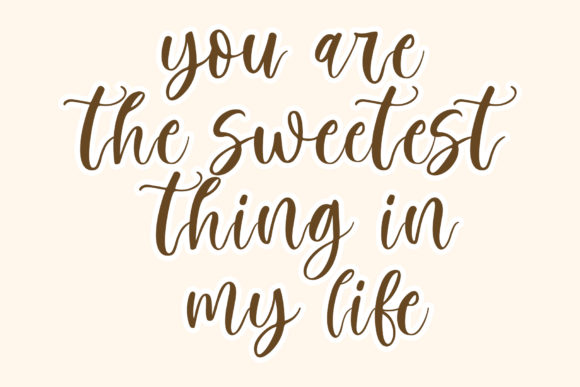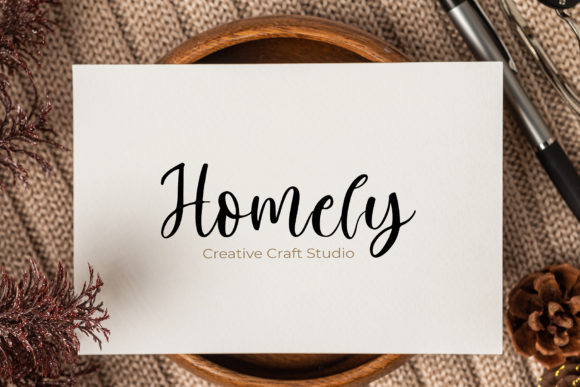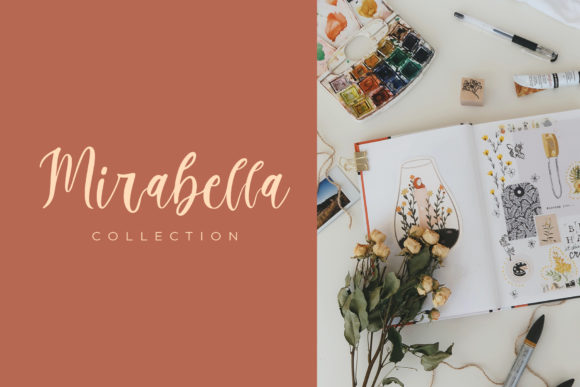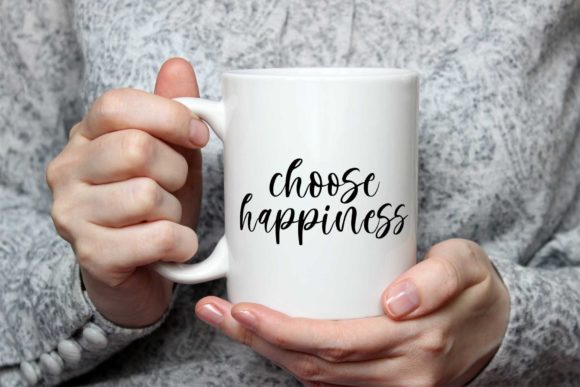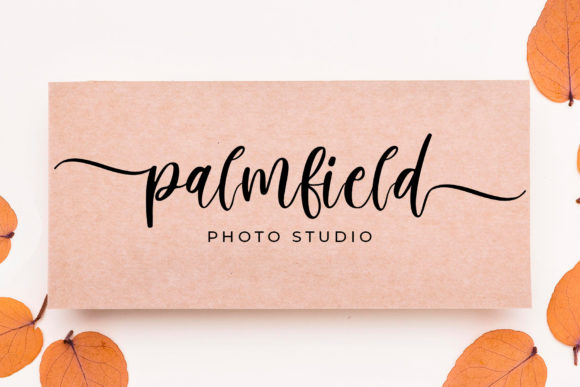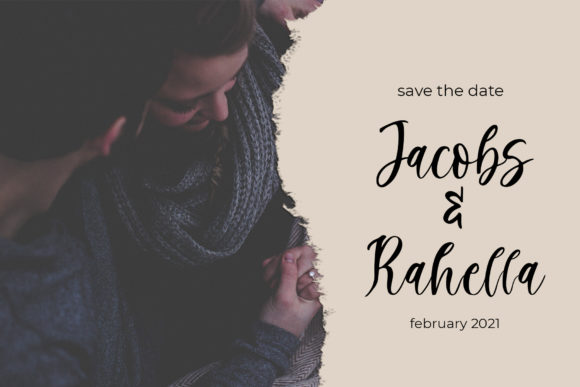
Creating Magic with Every Stroke: The Golden Moment Font
Do you remember that moment when everything came together – the colors, the typography, the overall aesthetic – and you knew you had created something truly special? For designers, that ‘golden moment’ is what drives us to push the boundaries of creativity and bring our visions to life. And now, with the Golden Moment Font, you can experience that magic with every stroke.
Imagine a font that’s as versatile as it is stylish, effortlessly blending into any design. That’s what the Golden Moment Font is all about – bringing a touch of elegance and sophistication to your projects. Whether you’re working on a branding campaign, a wedding invitation, or a social media graphic, this font is sure to make your designs stand out. Its value lies in its ability to elevate your work, making it a must-have for any designer looking to take their craft to the next level.
Key Features of Golden Moment Font
- Font Family: Golden Moment
- Unique Characteristics: The font features a unique blend of elegance and sophistication, with intricate details and subtle flourishes that set it apart from other fonts
Designer Review: Golden Moment Font
✨ I was excited to dive into the Golden Moment Font, and I’m happy to report that it does some things exceptionally well. The first thing that caught my eye was the elegant, cursive script that’s perfect for adding a touch of sophistication to any design. The font also features a beautiful, handwritten feel that’s great for creating a sense of warmth and approachability.
✨ Another strength of the Golden Moment Font is its versatility. Whether you’re creating a romantic wedding invitation, a heartfelt birthday card, or a luxurious branding package, this font is sure to shine. The font also comes in a range of weights and styles, making it easy to customize to your specific needs.
- ⚠️ The font may be too ornate for some designs, particularly those that require a more modern or minimalist aesthetic.
- ⚠️ Some of the letterforms can be a bit inconsistent in terms of stroke weight and spacing, which may require additional tweaking to achieve a polished look.
Overall, I’m really impressed with the Golden Moment Font. While it may have some limitations, its elegant design and versatility make it a great addition to any designer’s toolkit. With a little bit of finesse and customization, this font is sure to shine in a wide range of design applications.
Tips for Getting the Most Out of Golden Moment Font
Here are some tips for getting the most out of the Golden Moment Font:
- Use it for titles and headings to add a touch of elegance.
- Experiment with different font sizes and colors to create visual interest.
- Pair it with other fonts to create a unique and eye-catching design.
The Golden Moment Font is perfect for:
- Branding and marketing materials.
- Special occasion announcements and cards.
Alternatives to Golden Moment Font
Great Vibes Font is a beautiful, elegant script font perfect for creating a warm and inviting atmosphere. It’s ideal for use in wedding invitations, greeting cards, and other special occasion designs. Compared to Golden Moment Font, Great Vibes Font has a more flowing and organic feel, making it suitable for projects that require a sense of movement and energy.
Carolyna Pro Font is a sophisticated and modern script font that’s perfect for creating a luxurious and elegant look. It’s ideal for use in high-end branding, packaging design, and editorial projects. Compared to Golden Moment Font, Carolyna Pro Font has a more refined and polished feel, making it suitable for projects that require a sense of sophistication and glamour.
Q: What is the recommended font size for Golden Moment Font?
The recommended font size for Golden Moment Font varies depending on the application and the desired level of legibility. For body text, we recommend using a font size between 10 and 14 points. For display headings, you can use a font size between 18 and 24 points. Remember to adjust the line height and letter spacing accordingly to maintain optimal readability.